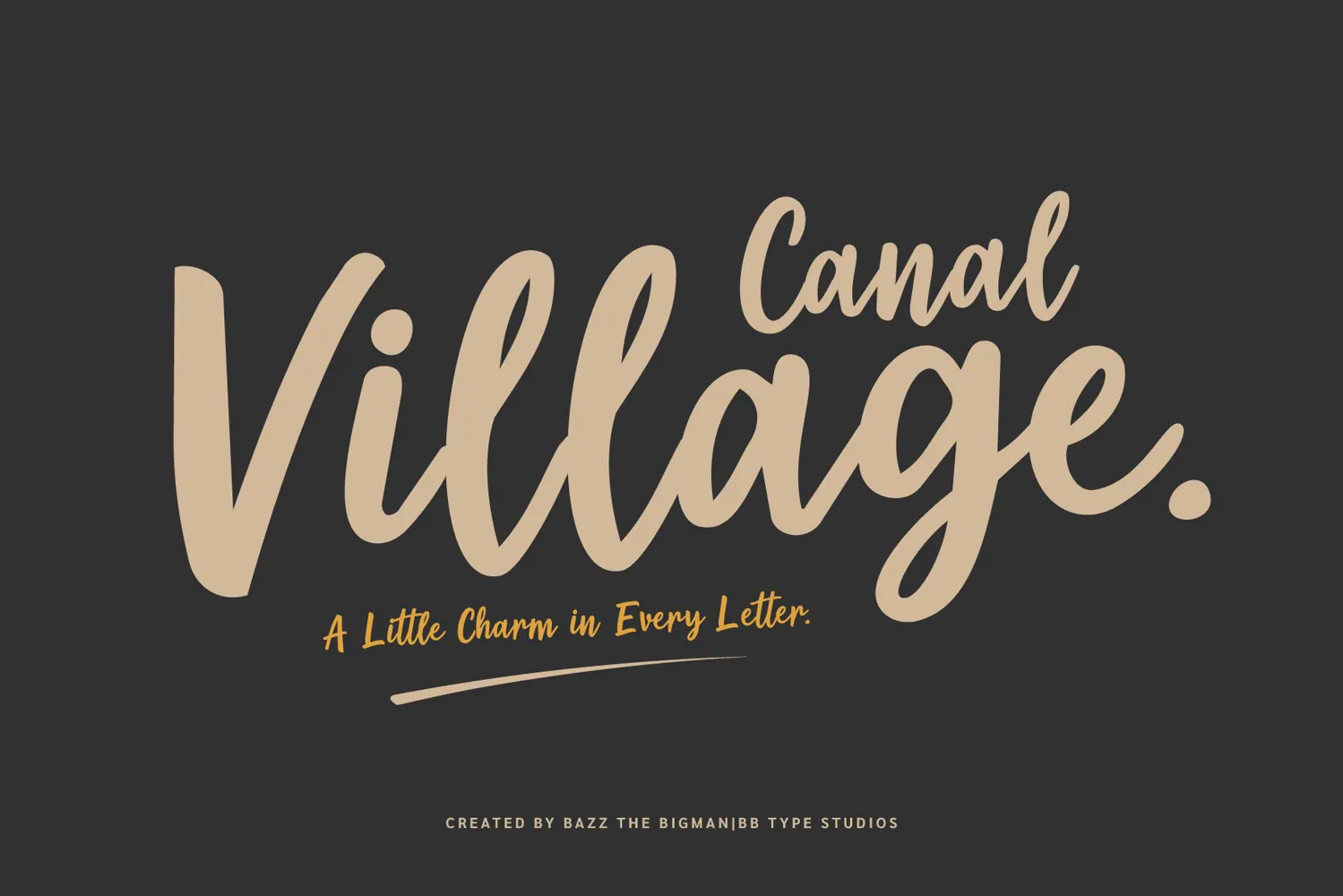
Canal Village is a warm, friendly, and stylish handwritten calligraphy font designed to bring a touch of cozy charm and playfulness to any creative project! With its bold, fluid strokes and smooth connections, this font perfectly balances modern casual style with a handcrafted. Whether you are designing bakery packaging, cafe branding, cozy Christmas apparel, jazz concert posters, or stylish fashion quotes, Canal Village adapts seamlessly to elevate your design with effortless elegance.